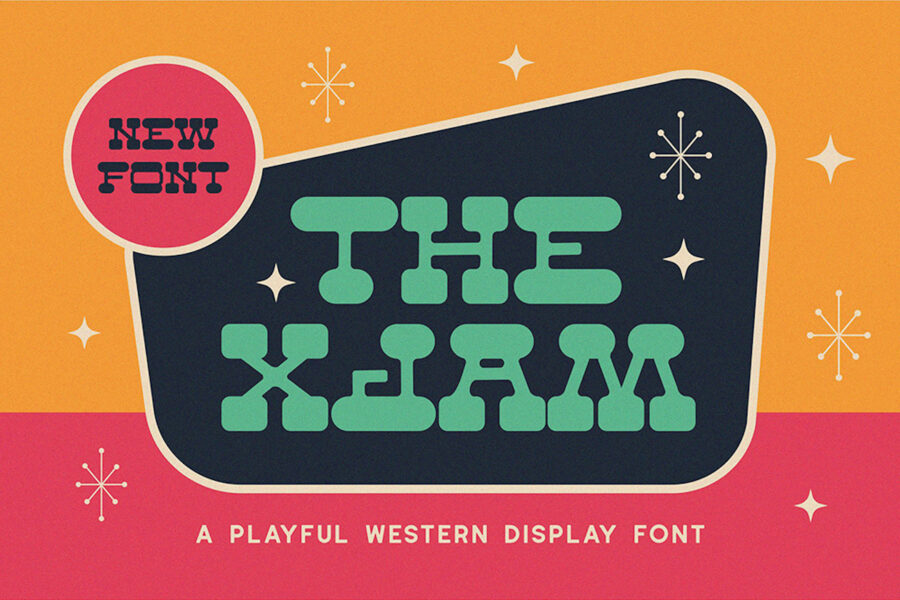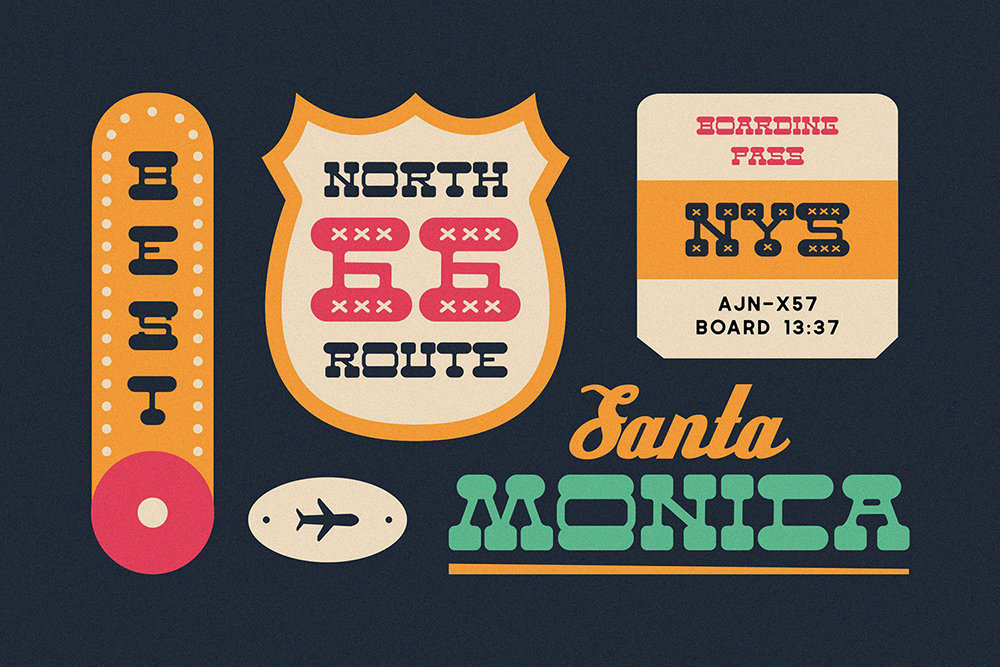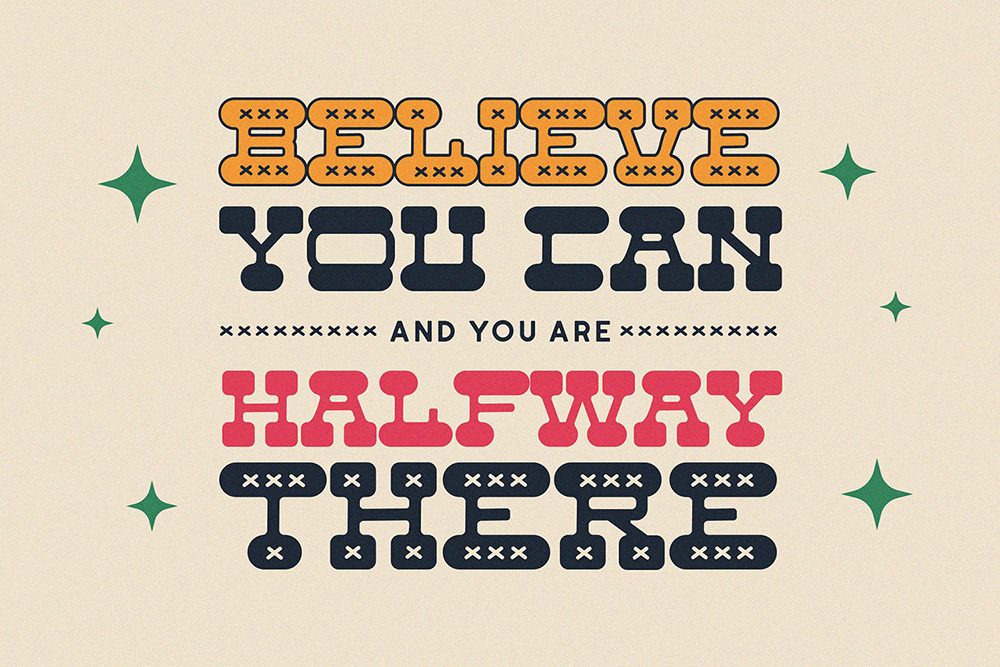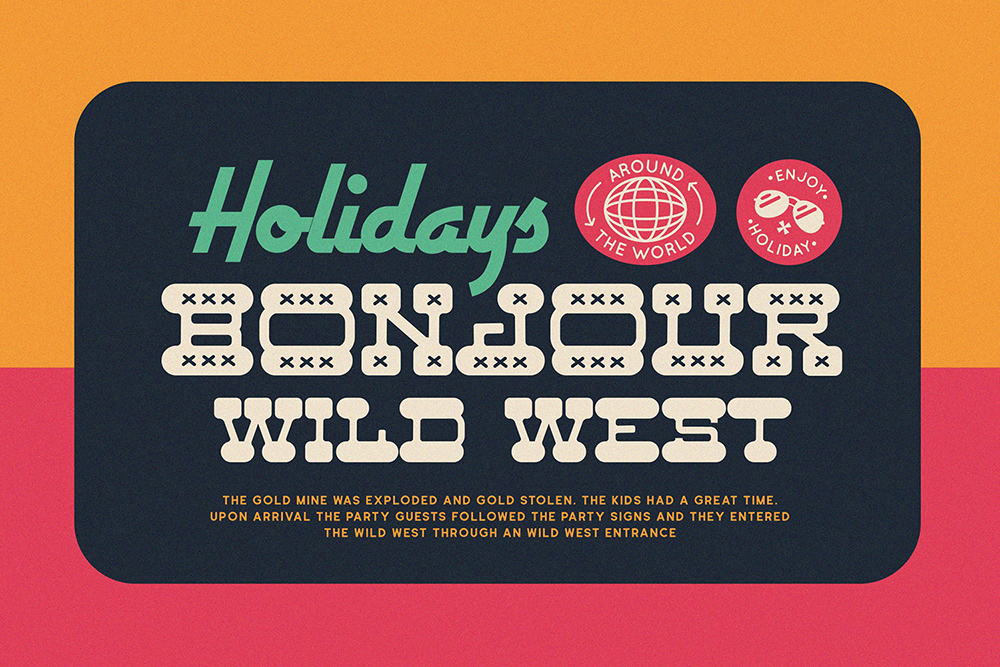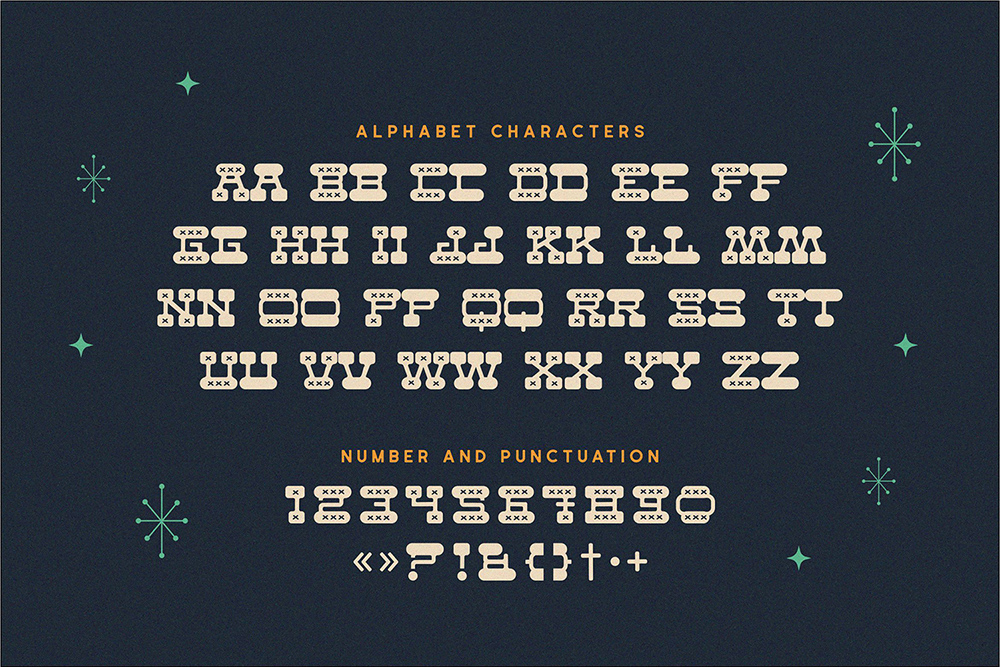
The Xjam font is a bold and playful western display typeface that captures the spirit of retro Americana. With its chunky letterforms, rounded edges, and unique cut-out details, this font blends fun and vintage charm, making it a perfect choice for projects that need a nostalgic yet modern twist. Its quirky shapes and vibrant style are inspired by signage, travel posters, and the adventurous energy of the Wild West.
Whether you’re creating posters, travel-themed graphics, branding, packaging, or social media content, Xjam brings a lively personality to your design. Its decorative alternates and striking presence make it versatile for retro-inspired titles, quotes, and creative layouts. Xjam is not just a font—it’s a design companion that adds excitement and a sense of fun wherever it’s used.
XJAM